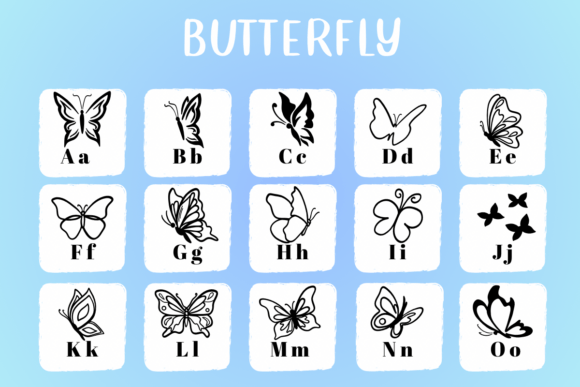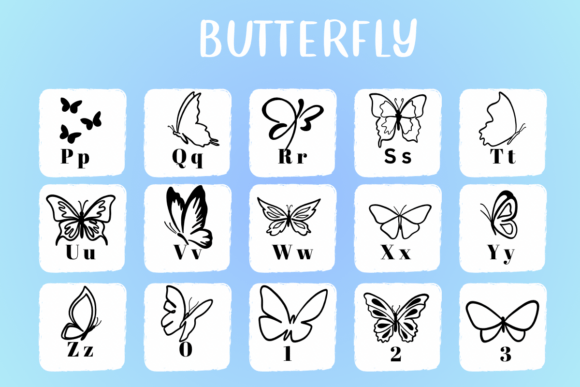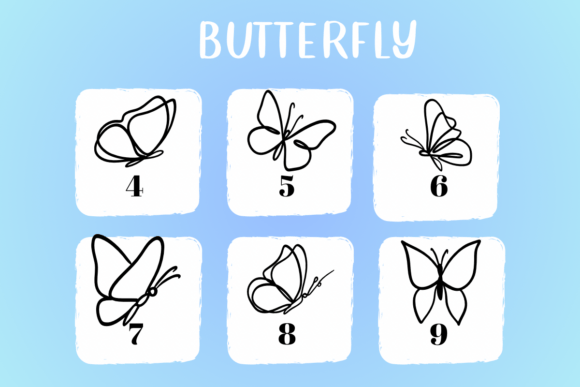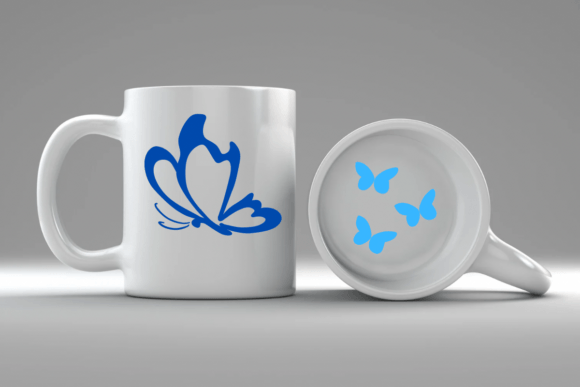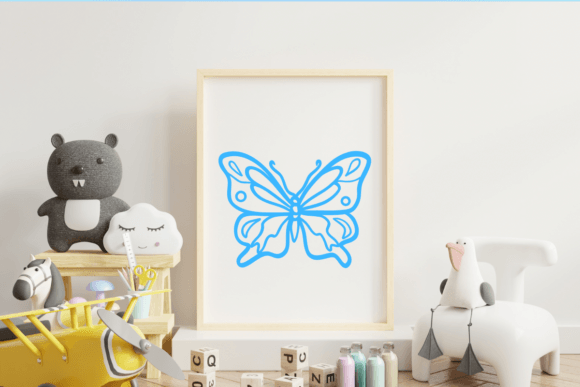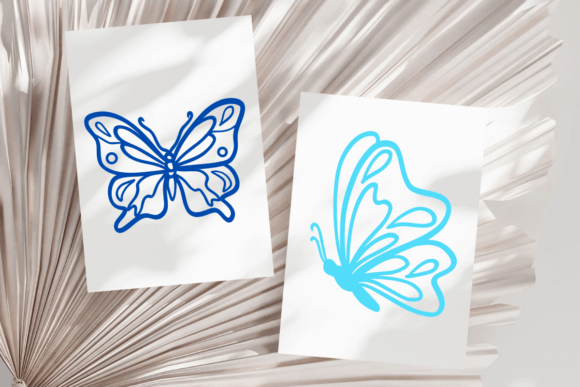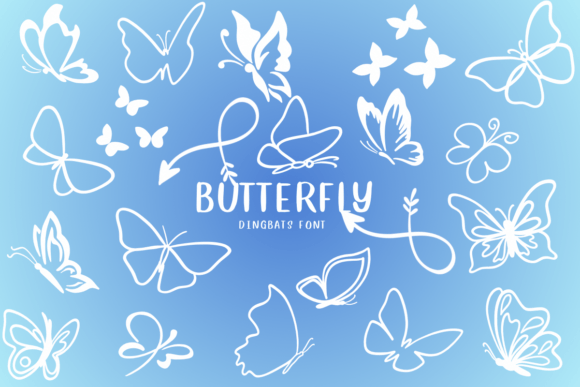
Introducing the Delicate Charm of Butterfly Font: Elevate Your Creative Projects
In the world of typography, fonts play a crucial role in conveying the tone and aesthetic of a project. For designers, crafters, and DIY enthusiasts, finding the perfect font can be a daunting task. However, if you’re looking for a unique and charming addition to your creative endeavors, look no further than the Butterfly font. This delightful dingbats font, with its sketched style, is sure to add a touch of whimsy and elegance to your projects.
What is Butterfly Font?
Butterfly is a distinctive dingbats font that features beautifully sketched illustrations of butterflies, making it an ideal choice for a variety of creative projects. Unlike traditional fonts, dingbats fonts like Butterfly offer a visual representation of characters, providing a fresh and artistic way to communicate your message. The sketched style of Butterfly font gives it a hand-drawn, organic feel that can add a personal touch to your designs.
Uses of Butterfly Font
The versatility of Butterfly font makes it suitable for a wide range of applications. Here are some ideas to get you started:
• Wedding Invitations: Add a romantic and delicate touch to your wedding invitations, save-the-date cards, and other wedding-related stationery.
• DIY and Crafts: Use Butterfly font to create personalized labels, tags, and decorations for your DIY projects, such as scrapbooking, card-making, and home decor.
• Logos and Branding: Incorporate the Butterfly font into your logo design or branding materials to convey a sense of elegance, freedom, and creativity.
• Decorations: Create beautiful wall art, garlands, or other decorative items using the Butterfly font to add a touch of whimsy to your space.
• Stationery and Gift Tags: Use the Butterfly font to design custom stationery, gift tags, and wrapping paper for a unique and personalized look.
Why Choose Butterfly Font?
With so many fonts available, why choose Butterfly font for your projects? Here are a few reasons:
• Unique and Eye-Catching: The sketched style of Butterfly font makes it stand out from more traditional fonts, adding visual interest to your designs.
• Versatile: The Butterfly font can be used in a variety of contexts, from formal to informal, and can be paired with a range of other fonts and design elements.
• Elegant and Whimsical: The butterfly illustrations in this font convey a sense of elegance and playfulness, making it perfect for projects that require a touch of sophistication and charm.
Tips for Using Butterfly Font Effectively
To get the most out of Butterfly font, consider the following tips:
• Pair with Complementary Fonts: Combine Butterfly font with serif or sans-serif fonts to create visual interest and hierarchy in your designs.
• Experiment with Colors: The Butterfly font looks beautiful in a range of colors, from soft pastels to bold brights. Experiment with different color schemes to find the perfect fit for your project.
• Use for Headings and Titles: The decorative nature of Butterfly font makes it ideal for headings and titles, adding a touch of personality to your designs.
• Don’t Overdo It: While the Butterfly font is beautiful, it’s best used in moderation. Balance your design with plenty of white space and simple typography to avoid overwhelming the viewer.
Font Name Butterfly Font
In conclusion, the Butterfly font is a charming and versatile dingbats font that can add a touch of elegance and whimsy to your creative projects. With its sketched style and beautiful butterfly illustrations, this font is perfect for designers, crafters, and DIY enthusiasts looking to elevate their designs. Whether you’re creating wedding invitations, logos, decorations, or stationery, Butterfly font is sure to inspire your creativity and bring a smile to your face.